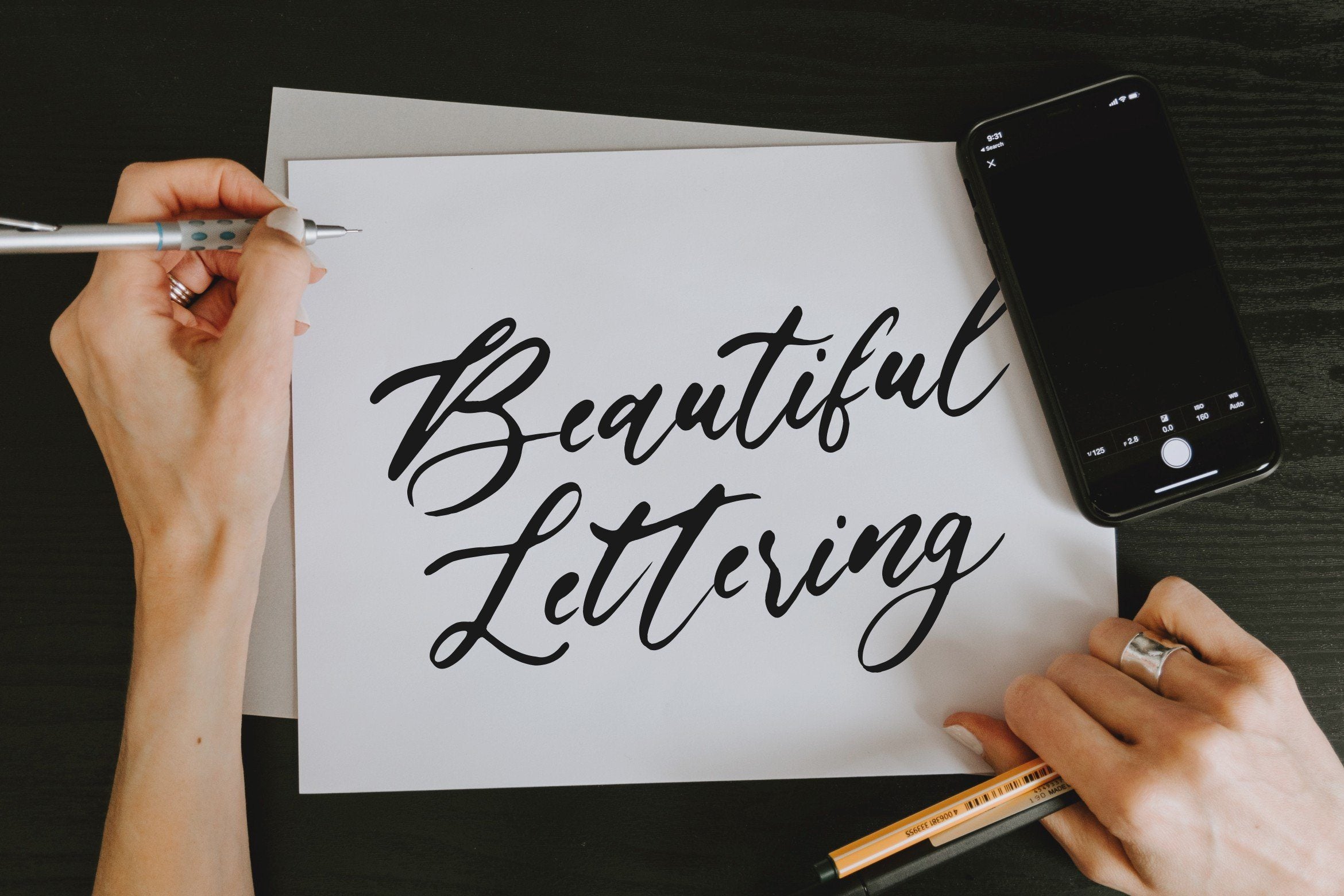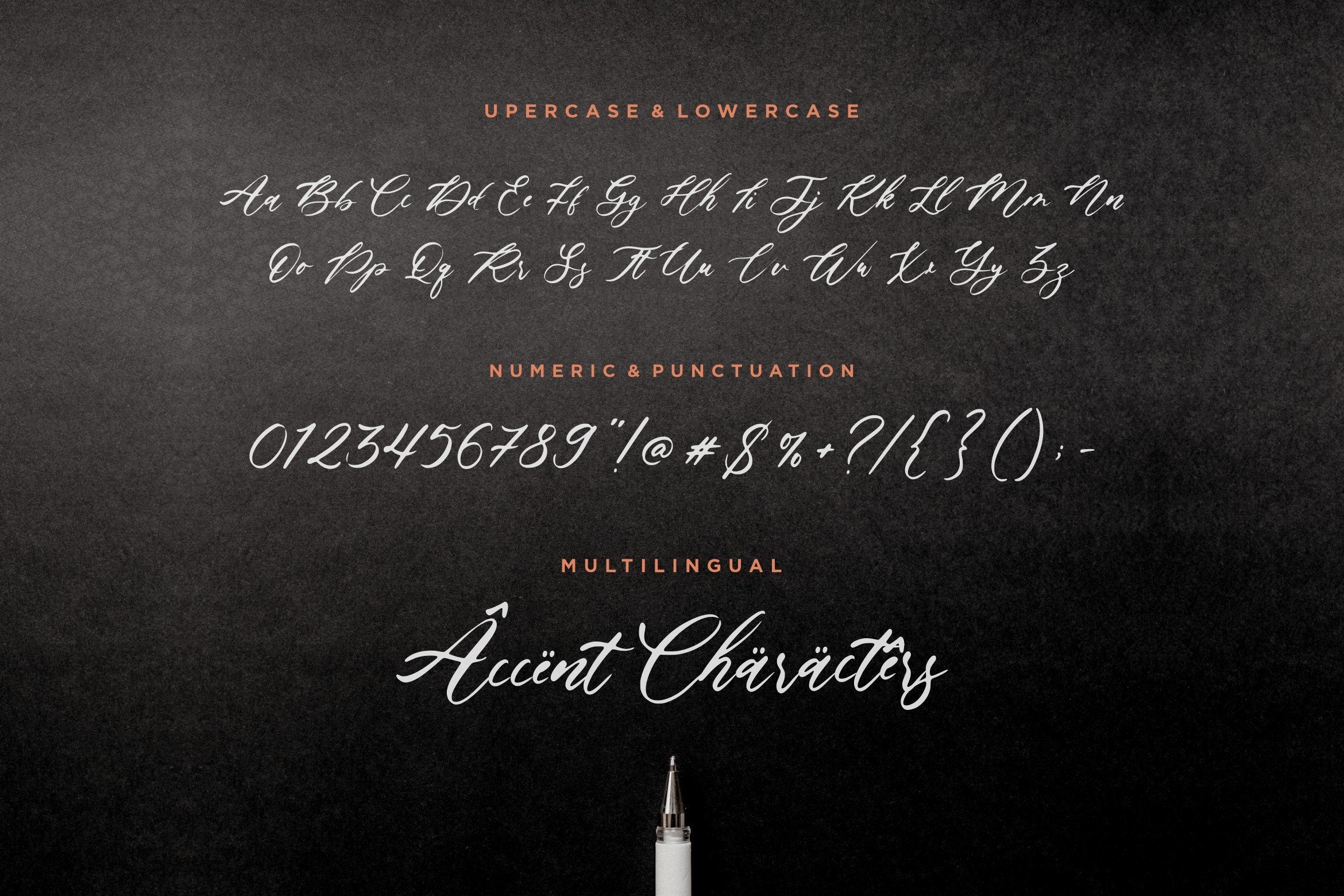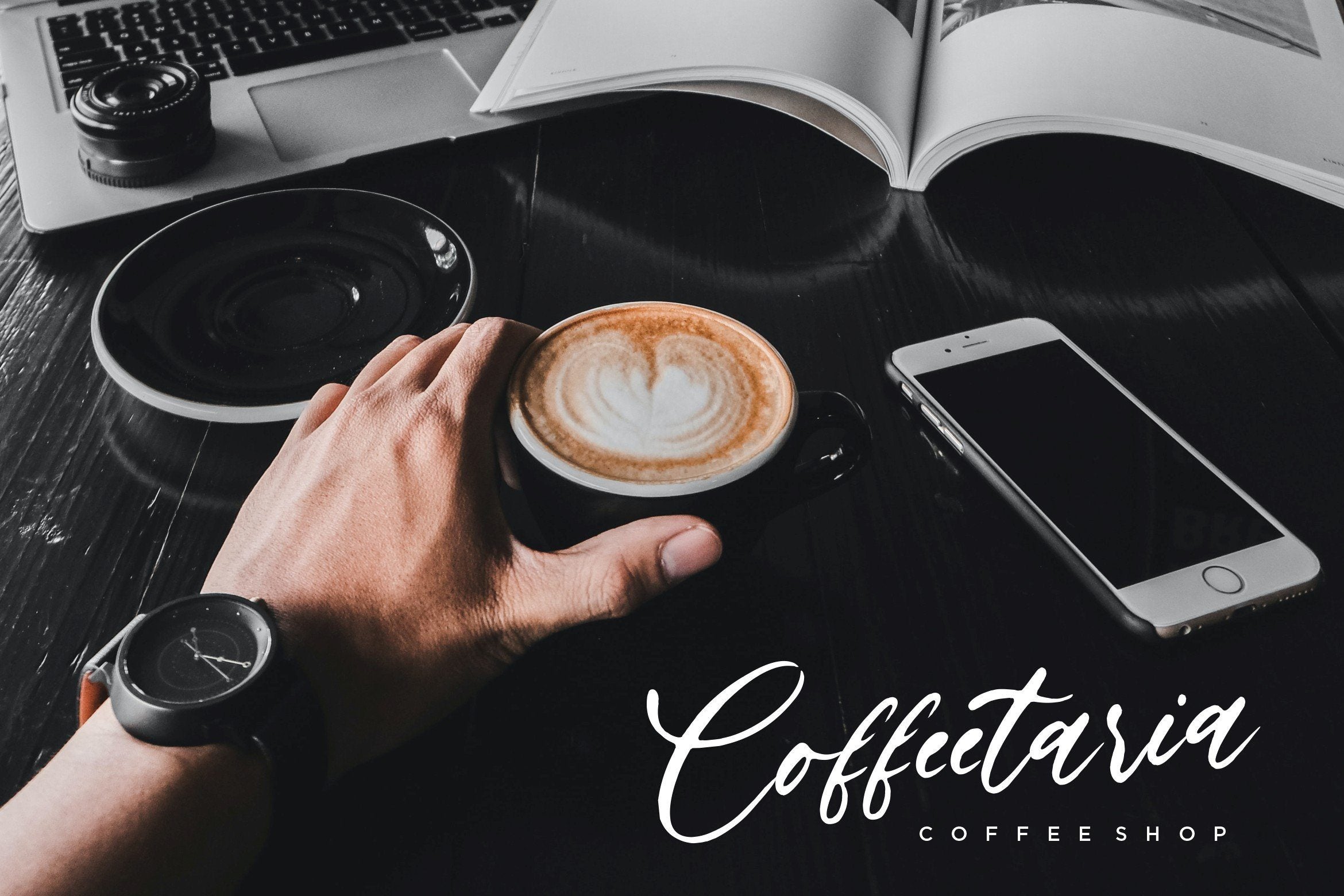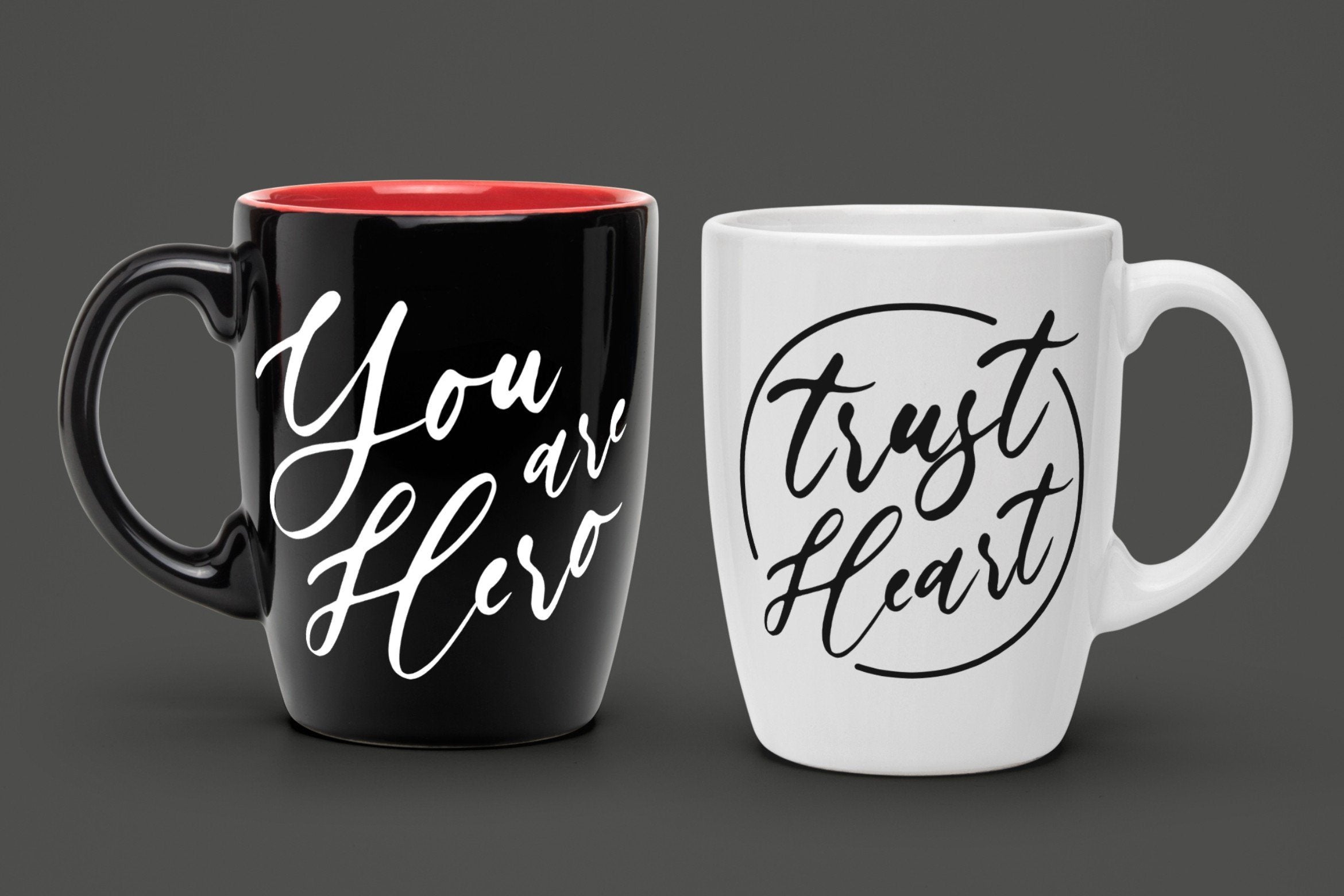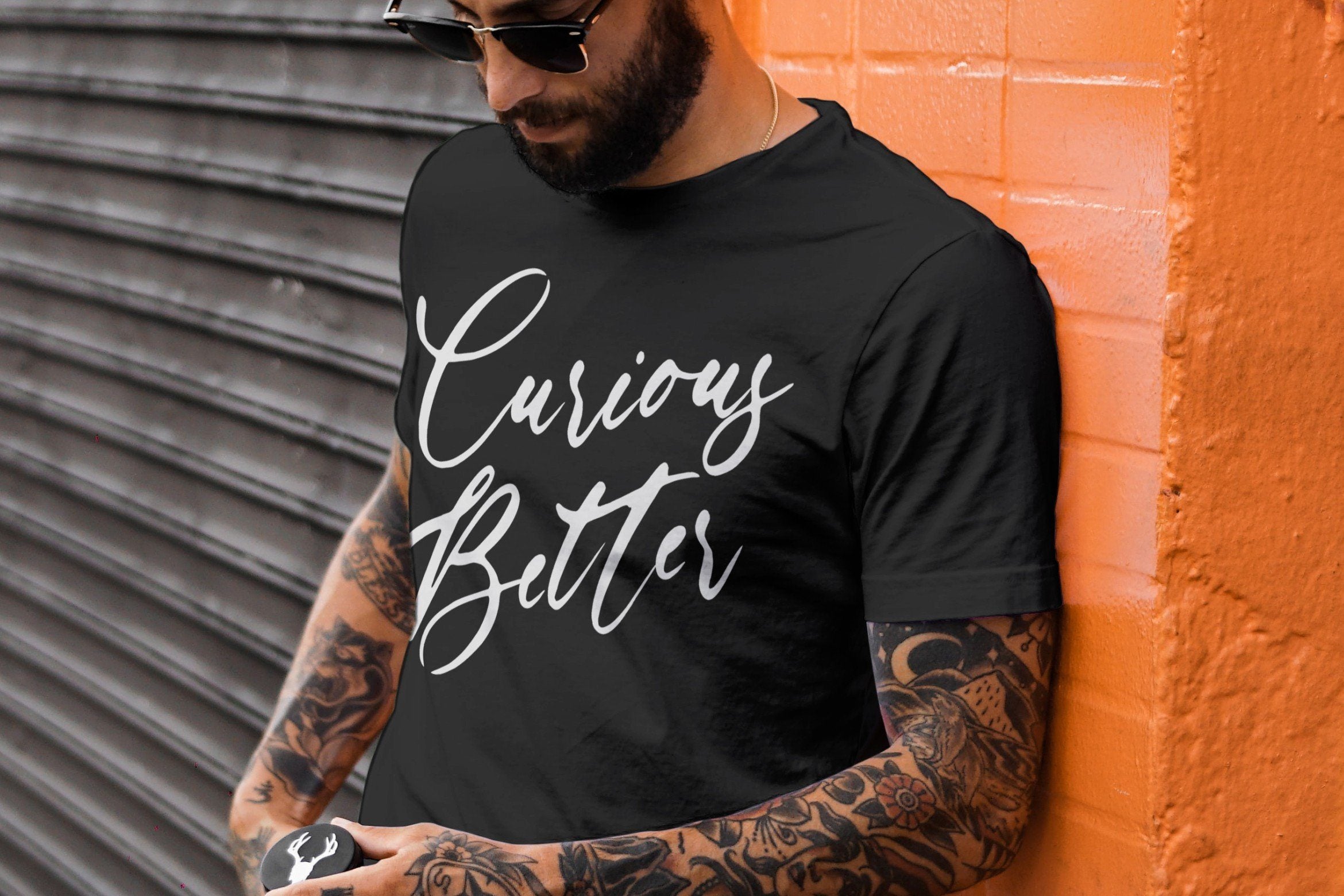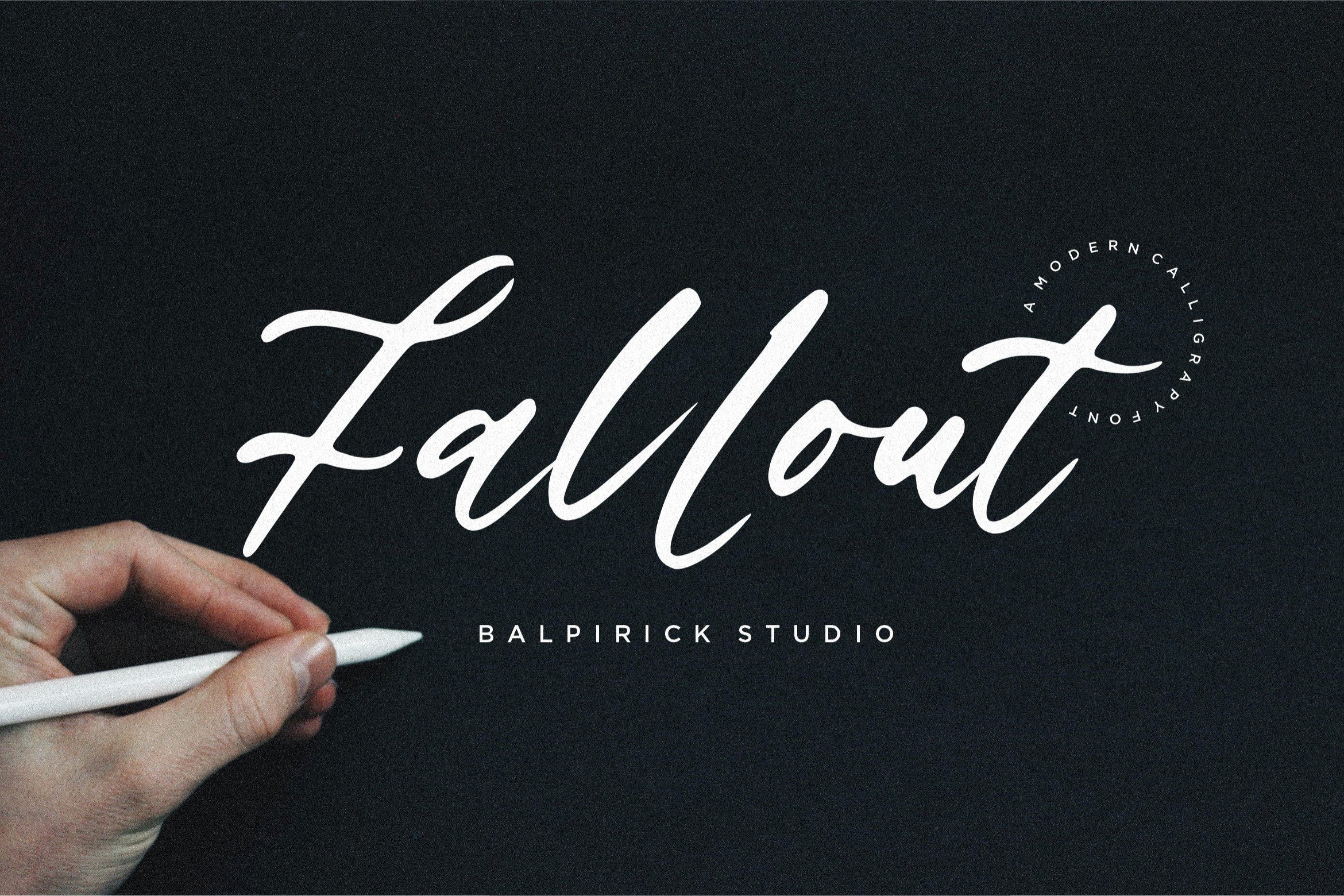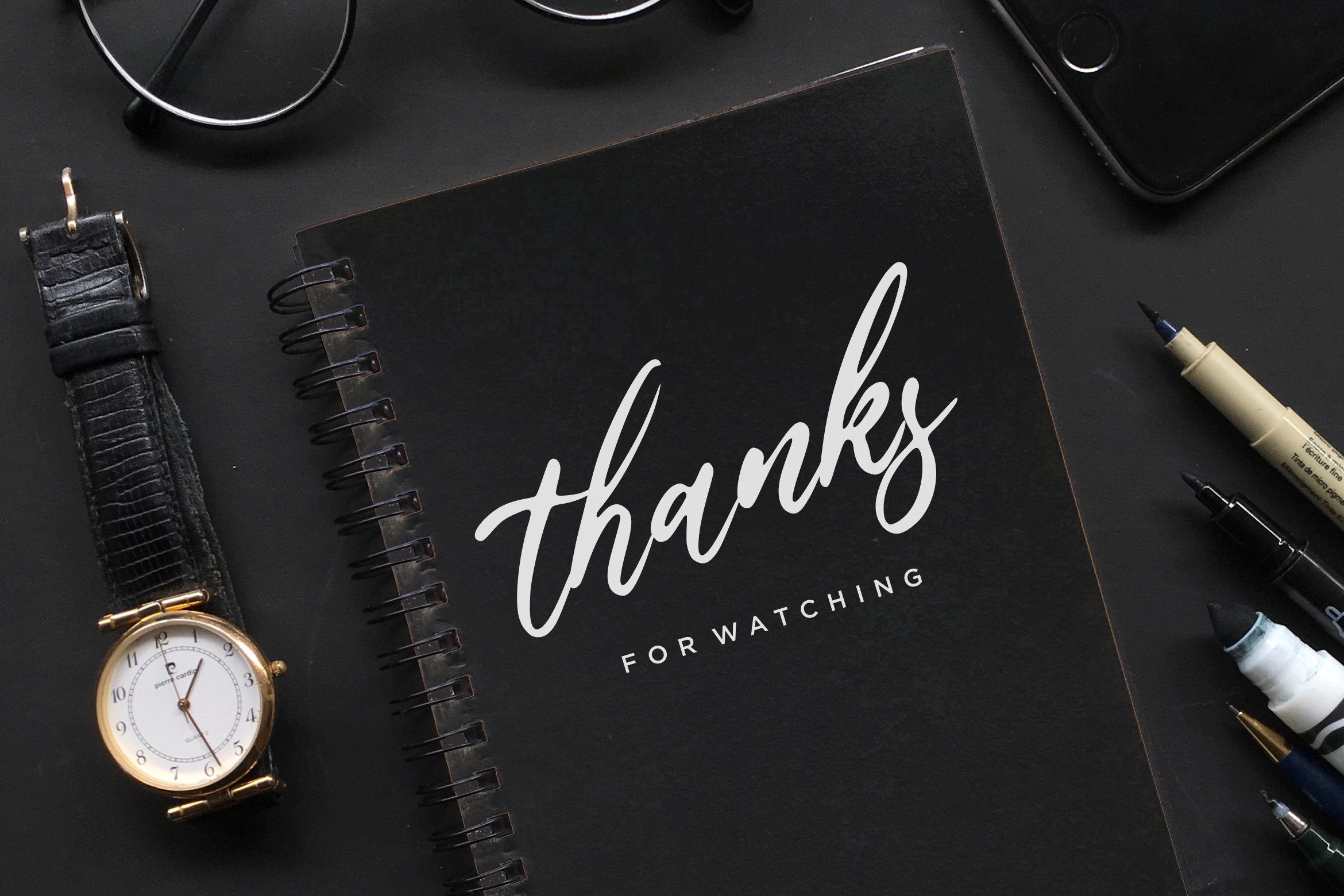
Fallout Modern Calligraphy Font
About Fallout Modern Calligraphy Font
Introducing by Balpirick Studio. Proudly Present, Fallout Font. Fallout is a Modern Calligraphy Font. Fallout is a flowing handwritten font, described by an elegant touch, perfect for your favorite projects. Fall in love with its incredibly distinct and timeless style and use it to create spectacular designs! This font includes TTF, OTF and WOFF, Fallout also multilingual support. Enjoy the font, feel free to comment or feedback, send me PM or email. Thank you!